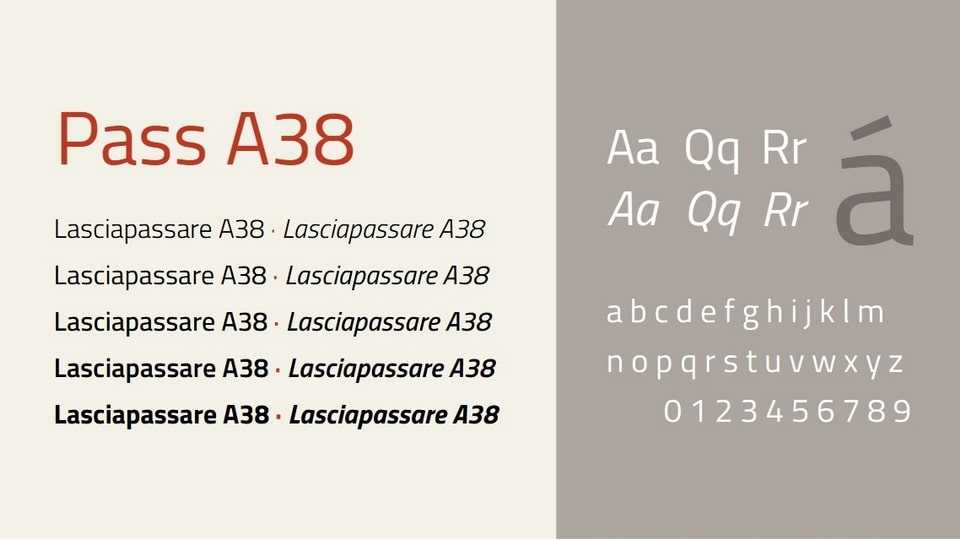
Download Pass A38 font, a variable typeface derived from Titillium Web of the Academy of Fine Arts of Urbino (with some modifications); the Titillium Web font has been adopted for public administration sites in Italy.
Designer: Michele Casanova